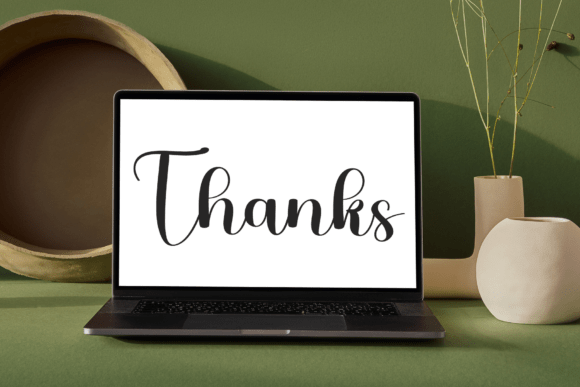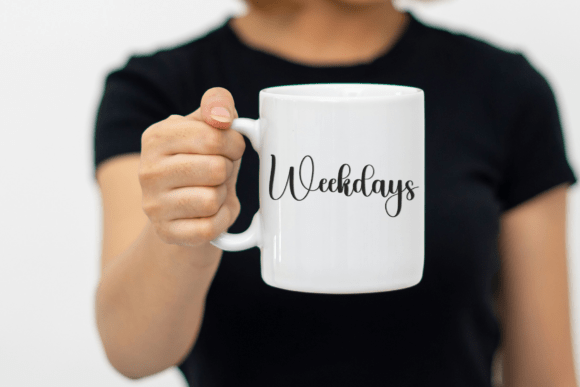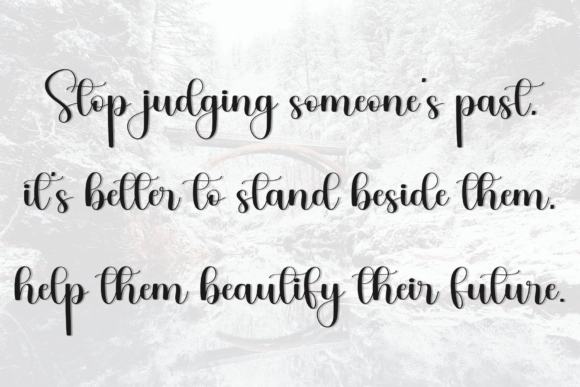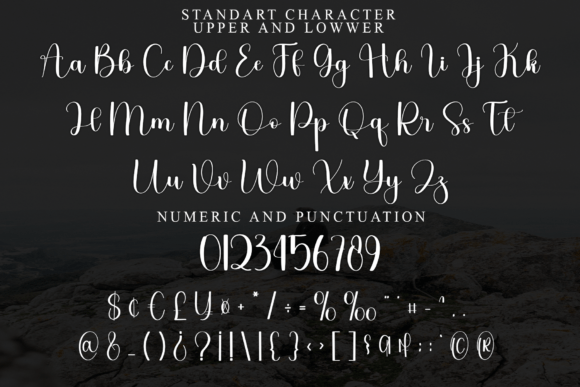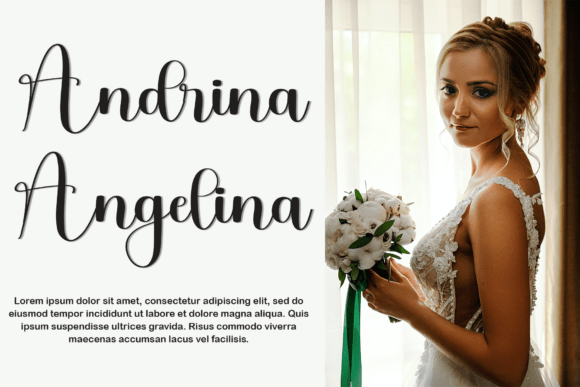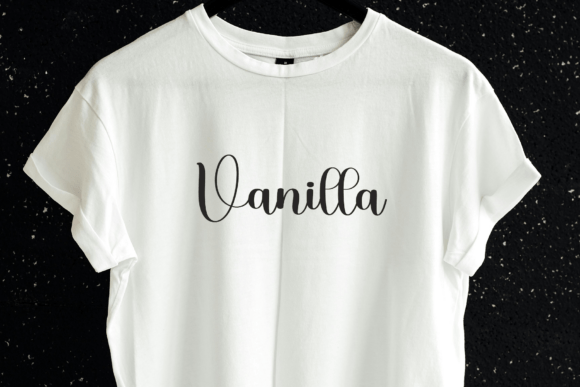
Introducing Christmas Waterfall Font: A Unique and Versatile Design Element
Are you looking for a font that adds a touch of magic to your design projects? Look no further than the Christmas Waterfall Font, a beautiful and eye-catching typeface designed with a soft, unique touch. This stunning font is perfect for designers, crafters, and creative professionals seeking to add a special something to their work.
What Makes Christmas Waterfall Font So Special?
The Christmas Waterfall Font boasts distinctive strokes that give it a special character, making it both meaningful and versatile for future use. Its unique design ensures that your projects stand out from the crowd, capturing the attention of your audience and leaving a lasting impression. Whether you’re working on a festive holiday project or a creative endeavor that requires a touch of whimsy, this font is sure to delight.
A World of Creative Possibilities
One of the best things about the Christmas Waterfall Font is its incredible versatility. With a wide range of characters at your disposal, you can use this font to create a variety of design projects, crafts, and other creative works. From greeting cards and invitations to posters, flyers, and digital graphics, the possibilities are endless.
Perfect for a Wide Range of Products
The natural, flowing style of the Christmas Waterfall Font makes it an ideal choice for a wide range of products. Use it to create stunning holiday-themed designs, such as Christmas cards, gift tags, and decorations. Alternatively, incorporate it into your everyday design projects, like brochures, logos, and social media graphics, to add a touch of personality and flair.
Why Choose Christmas Waterfall Font?
So why choose the Christmas Waterfall Font for your design projects? Here are just a few compelling reasons:
- Unique and eye-catching design: The Christmas Waterfall Font boasts a distinctive, soft touch that sets it apart from other fonts.
- Versatile and meaningful: With its special character and wide range of characters, this font is perfect for a variety of creative projects.
- Ideal for a wide range of products: From holiday-themed designs to everyday projects, the Christmas Waterfall Font is a versatile choice that can enhance your designs.
Tips for Using Christmas Waterfall Font
To get the most out of the Christmas Waterfall Font, here are a few tips to keep in mind:
- Experiment with different sizes and colors: Play around with different sizes and colors to find the perfect combination for your design project.
- Pair it with complementary fonts: Combine the Christmas Waterfall Font with other fonts to create a unique and visually appealing design.
- Use it to add a personal touch: Incorporate the Christmas Waterfall Font into your design projects to add a personal touch and make them more engaging.